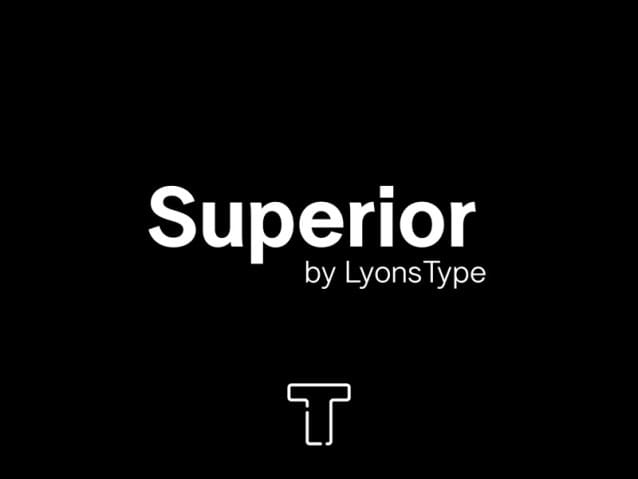
LT Superior Font, a sans-serif typeface with support of over 500 languages, and licensed under the SIL Open Font License.
| Designer Name: | LyonsType |
| Classification: | Sans Serif Fonts |